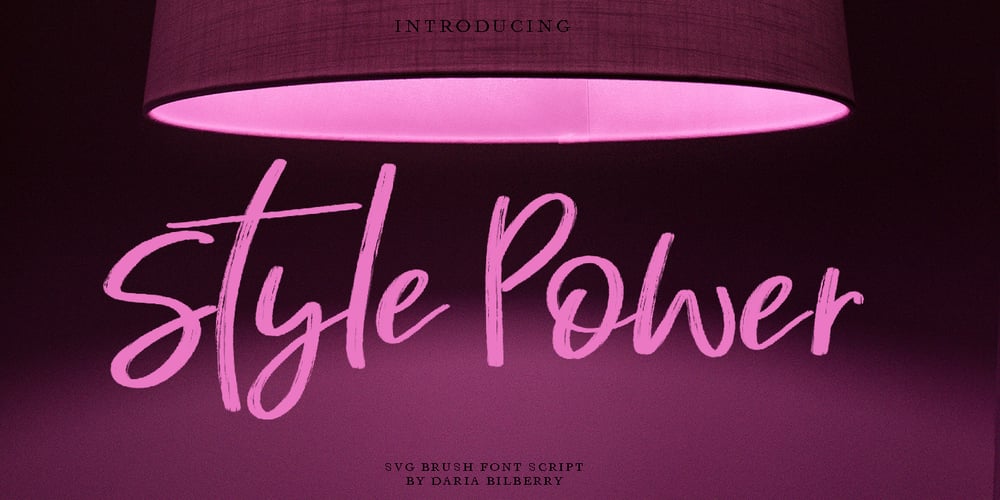
Style Power Font Family was designed by Daria Cherniackova and published by Bilberry Create. Style Power contains 2 styles and family package options. Important: The Opentype SVG fonts require Photoshop CC 2017 or Illustrator CC 2018 or newer to use. By the way – You do not need special software for Solid versions of the font The font was carefully drawn in charcoal and transferred to the digital version to create beautiful typographical designs. Style Power pack included: – Style Power SVG fonts – Style Power Solid Font versions of the SVG fonts – Style Power SVG Font are made by converting hand painted lettering , unchanged, including all its transparency and high resolution detail – into an actual font – as you type your letters out, it looks like you have just hand painted them. Solid versions of the SVG font – as a OTF & TTF Regular font, which works in all basic software able to type with standard fonts.